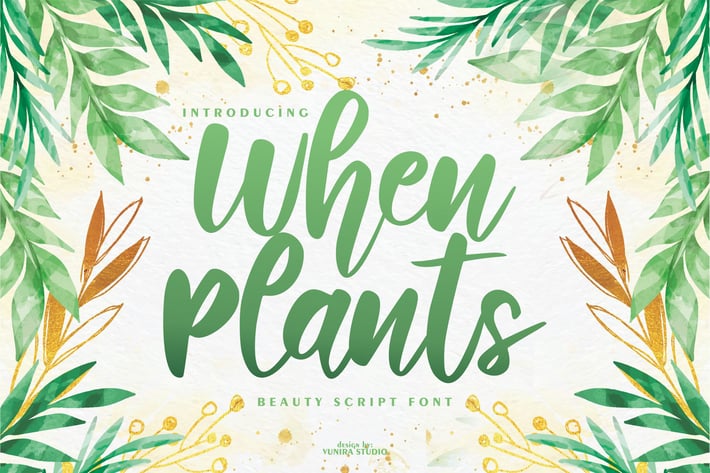
When Plants | Beauty Script Font
When Plants | Beauty Script Font with a calligraphy style, So beautiful on invitation like greeting cards, branding materials, business cards, quotes, posters, and more!